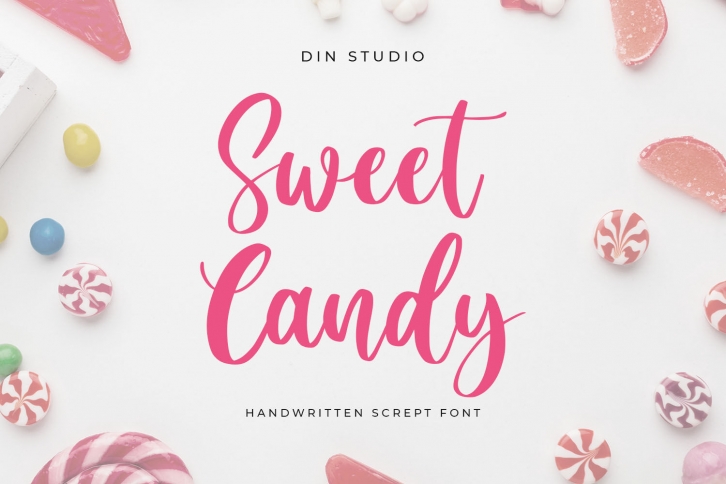
Say hello to Sweet Candy Script.
Sweet Candy is a beautiful and modern script. It brings a beautiful and modern typeface that best used for weddings, branding, logotype, and quotes.:
• Ligature
• Beautiful Alternates
• Numerals and Punctuation